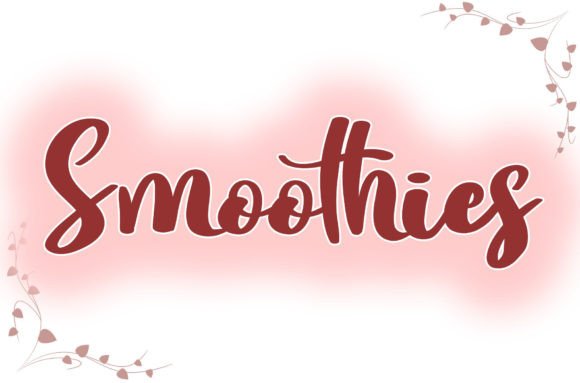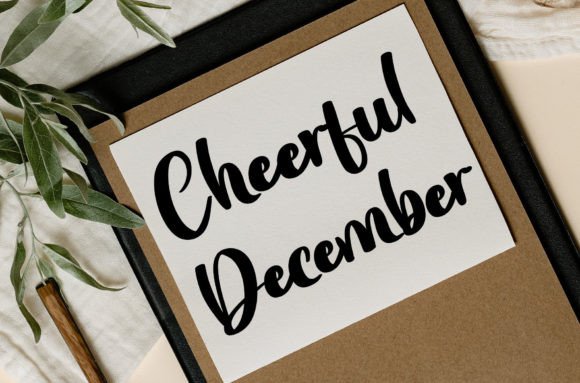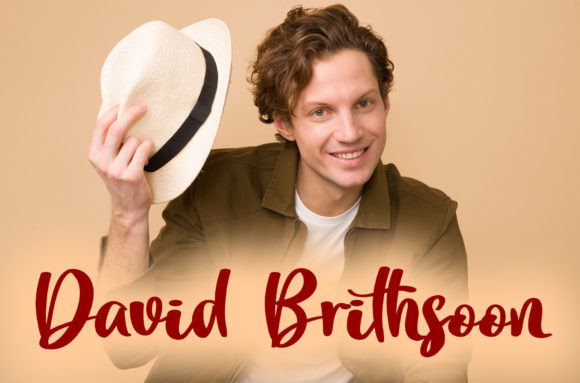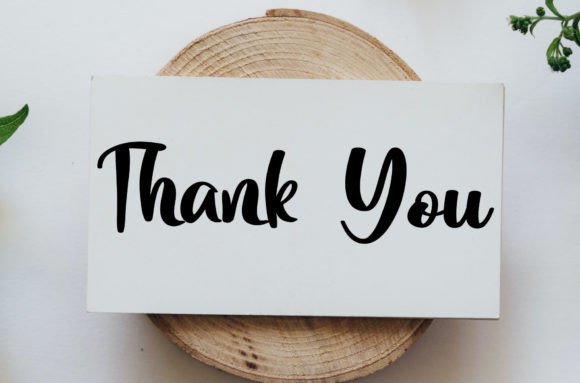
Smoothies: A Fancy Cursive Script Font for Bold, Stylish Designs
If you’re looking for a font that exudes both elegance and energy, look no further than Smoothies. This fancy cursive script font was carefully designed to add a bold and stylish touch to your creative work. Whether you’re designing a fashion brand logo, an eye-catching headline, or unique apparel graphics, Smoothies brings flair and personality to the table.
Its smooth curves and refined character make it suitable for both professional and playful applications.
Designed for Elegance and Impact
Smoothies stands out with its professionally crafted details and flowing cursive strokes. This typeface was built to make a statement. The letterforms are graceful, yet bold enough to hold their own in standout typography. This balance makes Smoothies an excellent choice for designers who want their work to appear polished, modern, and expressive.
This fancy cursive script font is ideal for:
Fashion and lifestyle brand logos
Social media graphics and bold headlines
Merchandise and apparel designs
Craft projects and handmade product labels
Business cards, signage, and packaging
T-shirt quotes, mugs, and posters
Its aesthetic adapts beautifully across industries—whether you’re working on elegant wedding items or trendy streetwear branding.
Why Choose the Smoothies Font?
Smoothies offers more than just good looks. Its design integrity ensures excellent readability while maintaining an artistic feel. It’s bold, confident, and versatile—a rare combination in a script font.
Here’s why creatives love using Smoothies:
Elegant cursive style with bold character
Excellent legibility at all sizes
Neat and consistent stroke weight
Works well in both print and digital formats
Adds sophistication and personality to designs
It pairs well with minimalist sans-serif fonts for contrast or can stand alone as a headline-grabbing typeface.
Perfect for Apparel, Logos, and Crafts
This font is made for standout designs. Whether you’re printing on fabric, crafting digital visuals, or packaging boutique products, Smoothies delivers the premium look and feel you’re after.
Ideal use cases include:
Apparel branding and custom merchandise
Greeting cards, invitations, and signage
Instagram posts and Pinterest pins
Downloadable printables and planners
Label design for beauty or lifestyle products
Every project gets a stylish upgrade with Smoothies.
Bold, beautiful, and versatile, Smoothies is the fancy cursive script font that empowers your designs with charm and professionalism. It’s easy to use, visually striking, and suitable for all kinds of modern projects.